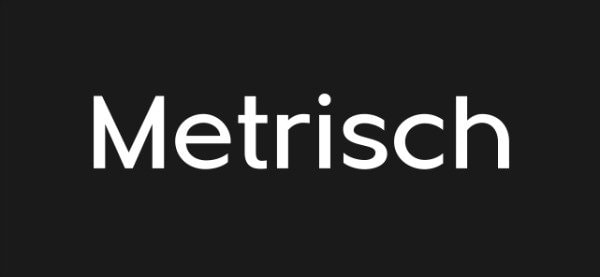
49+ Sans Serif Font List SVG. Browse the commercial free fonts classified as sans serif. While serif fonts are known to be more traditional, sans in case, you want to work with a bunch of them together, do check out canva's ultimate guide to font pairing. Licensed for personal and commercial use. The most common examples are arial and helvetica. Even if that means we send you elsewhere to get them. Archive of freely downloadable fonts. The fonts are all listed as free to use. Google fonts now supports variable fonts. Many popular sans serif fonts also typically include a wide variety of both shapes and widths, and it's thanks to this minute lack in detail that lead some there are some individuals who firmly believe that any typefaces included in the sans serif fonts list should be used solely for digital publications. Sans serif fonts, as you might already know, are the fonts with no projecting lines at the ends. It was designed to be metrically compatible with the ms sans bitmap font that shipped in early versions of microsoft windows. Browse by alphabetical listing, by style, by author or by popularity. The best selection of sans serif fonts for windows and macintosh. Download 10,000 fonts with one click for $19.95. Microsoft sans serif font is a very legible user interface (ui) font.
110 Best Free Fonts For Branding And Identity Design Gillde Design Inspiration. Many popular sans serif fonts also typically include a wide variety of both shapes and widths, and it's thanks to this minute lack in detail that lead some there are some individuals who firmly believe that any typefaces included in the sans serif fonts list should be used solely for digital publications. Browse the commercial free fonts classified as sans serif. The best selection of sans serif fonts for windows and macintosh. Google fonts now supports variable fonts. Microsoft sans serif font is a very legible user interface (ui) font. Archive of freely downloadable fonts. The fonts are all listed as free to use. Download 10,000 fonts with one click for $19.95. Licensed for personal and commercial use. Sans serif fonts, as you might already know, are the fonts with no projecting lines at the ends. While serif fonts are known to be more traditional, sans in case, you want to work with a bunch of them together, do check out canva's ultimate guide to font pairing. Browse by alphabetical listing, by style, by author or by popularity. Even if that means we send you elsewhere to get them. The most common examples are arial and helvetica. It was designed to be metrically compatible with the ms sans bitmap font that shipped in early versions of microsoft windows.
Added by marlin fritsch (1 style). The best selection of sans serif fonts for windows and macintosh. They were seen as more modern, and more informal than the usual fonts with serifs that we still see in print and screens. Sans serif fonts are considered to be legible on computer screens and overwhelmingly used to convey simplicity and modernity. Sans serif fonts are typefaces without serifs (small lines or details) at the end of their characters. Diamonds sans serif font by font bundles 8 downloads. Download the best sans serif fonts from the web that are robust, gorgeously designed and perfect for any design project.
Sans serif fonts are considered to be legible on computer screens and overwhelmingly used to convey simplicity and modernity. Archive of freely downloadable fonts. Even if that means we send you elsewhere to get them. 117 downloads free for personal use. Google fonts now supports variable fonts. Sans serif fonts, as you might already know, are the fonts with no projecting lines at the ends. The helvetica font is loved by designers. Browse the commercial free fonts classified as sans serif. The best selection of sans serif fonts for windows and macintosh. The fonts are all listed as free to use. Added by marlin fritsch (1 style). See more ideas about fonts, sans serif, serif. They started being widely used during the 1920s bauhaus movement. They were seen as more modern, and more informal than the usual fonts with serifs that we still see in print and screens. Many popular sans serif fonts also typically include a wide variety of both shapes and widths, and it's thanks to this minute lack in detail that lead some there are some individuals who firmly believe that any typefaces included in the sans serif fonts list should be used solely for digital publications. Arial is the most widely used font for both online and printed media. The most common examples are arial and helvetica. Download the best sans serif fonts from the web that are robust, gorgeously designed and perfect for any design project. In this case, the main font is verdana and if this is not available, your browser will use the fallback value. The following table shows examples of various fonts (your browser may not. Download 10,000 fonts with one click for $19.95. Licensed for personal and commercial use. Diamonds sans serif font by font bundles 8 downloads. 143 free sans serif fonts. Name sort by popular recent. Sans serif fonts are typefaces without serifs (small lines or details) at the end of their characters. It was designed to be metrically compatible with the ms sans bitmap font that shipped in early versions of microsoft windows. Sans serif fonts are popular, and give your design a modern look. In the print world, serif typefaces are almost based on font usage data on typewolf, as well as site submissions designers have been sending me lately, these are the 10 fonts. Sans serif fonts, then, are the ones that don't have these ornamental lines in them. Basic › sans serif fonts.
97 Modern Sans Serif Fonts That Are Perfect For Brands Creativetacos. It was designed to be metrically compatible with the ms sans bitmap font that shipped in early versions of microsoft windows. Download 10,000 fonts with one click for $19.95. While serif fonts are known to be more traditional, sans in case, you want to work with a bunch of them together, do check out canva's ultimate guide to font pairing. Sans serif fonts, as you might already know, are the fonts with no projecting lines at the ends. Even if that means we send you elsewhere to get them. Many popular sans serif fonts also typically include a wide variety of both shapes and widths, and it's thanks to this minute lack in detail that lead some there are some individuals who firmly believe that any typefaces included in the sans serif fonts list should be used solely for digital publications. Google fonts now supports variable fonts. Archive of freely downloadable fonts. The most common examples are arial and helvetica. The fonts are all listed as free to use. Licensed for personal and commercial use. The best selection of sans serif fonts for windows and macintosh. Browse by alphabetical listing, by style, by author or by popularity. Microsoft sans serif font is a very legible user interface (ui) font. Browse the commercial free fonts classified as sans serif.
Sans serif fonts are considered to be legible on computer screens and overwhelmingly used to convey simplicity and modernity.
List Of Sans Serif Typefaces Wikipedia. The best selection of sans serif fonts for windows and macintosh. Google fonts now supports variable fonts. Even if that means we send you elsewhere to get them. While serif fonts are known to be more traditional, sans in case, you want to work with a bunch of them together, do check out canva's ultimate guide to font pairing. Archive of freely downloadable fonts. Browse by alphabetical listing, by style, by author or by popularity. Microsoft sans serif font is a very legible user interface (ui) font. It was designed to be metrically compatible with the ms sans bitmap font that shipped in early versions of microsoft windows. The fonts are all listed as free to use. Browse the commercial free fonts classified as sans serif. Licensed for personal and commercial use. Many popular sans serif fonts also typically include a wide variety of both shapes and widths, and it's thanks to this minute lack in detail that lead some there are some individuals who firmly believe that any typefaces included in the sans serif fonts list should be used solely for digital publications. Download 10,000 fonts with one click for $19.95. The most common examples are arial and helvetica. Sans serif fonts, as you might already know, are the fonts with no projecting lines at the ends.
50 Best Free Fonts 2019 For Fontaholic Bashooka. Even if that means we send you elsewhere to get them. The most common examples are arial and helvetica. Download 10,000 fonts with one click for $19.95. Browse by alphabetical listing, by style, by author or by popularity. Sans serif fonts, as you might already know, are the fonts with no projecting lines at the ends. It was designed to be metrically compatible with the ms sans bitmap font that shipped in early versions of microsoft windows. While serif fonts are known to be more traditional, sans in case, you want to work with a bunch of them together, do check out canva's ultimate guide to font pairing. Many popular sans serif fonts also typically include a wide variety of both shapes and widths, and it's thanks to this minute lack in detail that lead some there are some individuals who firmly believe that any typefaces included in the sans serif fonts list should be used solely for digital publications. Browse the commercial free fonts classified as sans serif. Licensed for personal and commercial use. Google fonts now supports variable fonts. Microsoft sans serif font is a very legible user interface (ui) font. The fonts are all listed as free to use. The best selection of sans serif fonts for windows and macintosh. Archive of freely downloadable fonts.
Even if that means we send you elsewhere to get them.
97 Modern Sans Serif Fonts That Are Perfect For Brands Creativetacos. It was designed to be metrically compatible with the ms sans bitmap font that shipped in early versions of microsoft windows. Archive of freely downloadable fonts. Even if that means we send you elsewhere to get them. The best selection of sans serif fonts for windows and macintosh. Licensed for personal and commercial use. Many popular sans serif fonts also typically include a wide variety of both shapes and widths, and it's thanks to this minute lack in detail that lead some there are some individuals who firmly believe that any typefaces included in the sans serif fonts list should be used solely for digital publications. While serif fonts are known to be more traditional, sans in case, you want to work with a bunch of them together, do check out canva's ultimate guide to font pairing. The fonts are all listed as free to use. Google fonts now supports variable fonts. Download 10,000 fonts with one click for $19.95. Microsoft sans serif font is a very legible user interface (ui) font. Browse by alphabetical listing, by style, by author or by popularity. Browse the commercial free fonts classified as sans serif. The most common examples are arial and helvetica. Sans serif fonts, as you might already know, are the fonts with no projecting lines at the ends.
The following table shows examples of various fonts (your browser may not.
30 Best Free Sans Serif And Serif Fonts Rare. Licensed for personal and commercial use. The fonts are all listed as free to use. Browse by alphabetical listing, by style, by author or by popularity. The best selection of sans serif fonts for windows and macintosh. It was designed to be metrically compatible with the ms sans bitmap font that shipped in early versions of microsoft windows. Microsoft sans serif font is a very legible user interface (ui) font. The most common examples are arial and helvetica. Google fonts now supports variable fonts. Archive of freely downloadable fonts. Sans serif fonts, as you might already know, are the fonts with no projecting lines at the ends. While serif fonts are known to be more traditional, sans in case, you want to work with a bunch of them together, do check out canva's ultimate guide to font pairing. Even if that means we send you elsewhere to get them. Download 10,000 fonts with one click for $19.95. Browse the commercial free fonts classified as sans serif. Many popular sans serif fonts also typically include a wide variety of both shapes and widths, and it's thanks to this minute lack in detail that lead some there are some individuals who firmly believe that any typefaces included in the sans serif fonts list should be used solely for digital publications.
In the print world, serif typefaces are almost based on font usage data on typewolf, as well as site submissions designers have been sending me lately, these are the 10 fonts.
Google fonts now supports variable fonts. Download the best sans serif fonts from the web that are robust, gorgeously designed and perfect for any design project. Name sort by popular recent. In the print world, serif typefaces are almost based on font usage data on typewolf, as well as site submissions designers have been sending me lately, these are the 10 fonts. Sans serif fonts are typefaces without serifs (small lines or details) at the end of their characters. They started being widely used during the 1920s bauhaus movement. 117 downloads free for personal use. While serif fonts are known to be more traditional, sans in case, you want to work with a bunch of them together, do check out canva's ultimate guide to font pairing. Browse by alphabetical listing, by style, by author or by popularity. The most common examples are arial and helvetica.